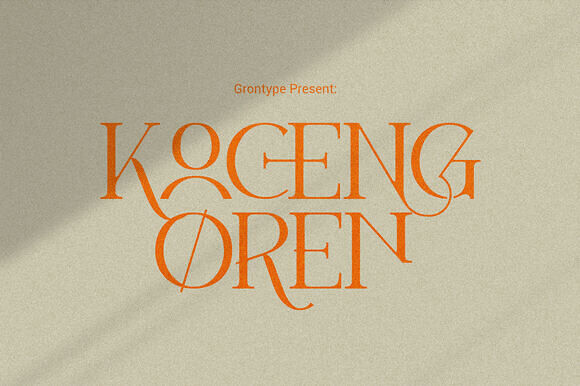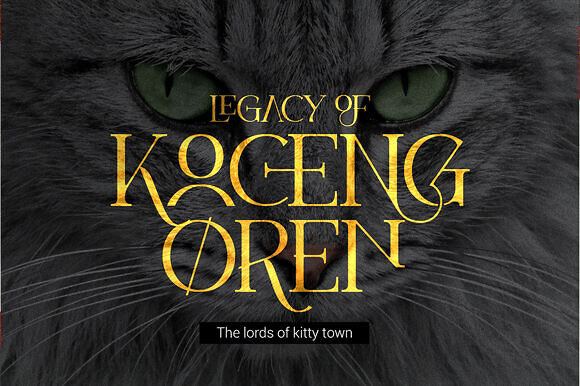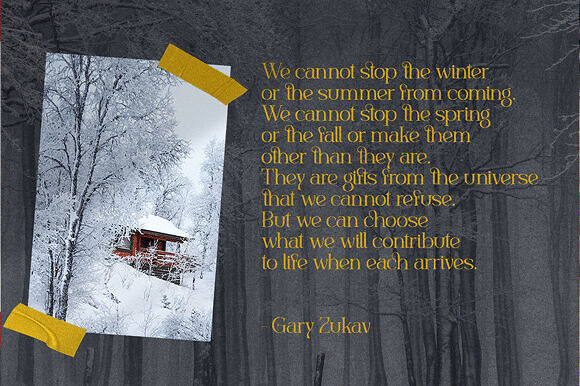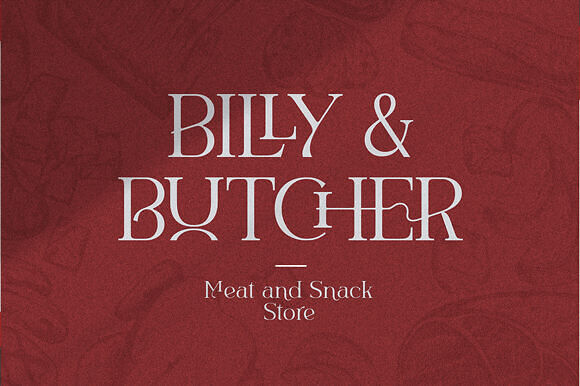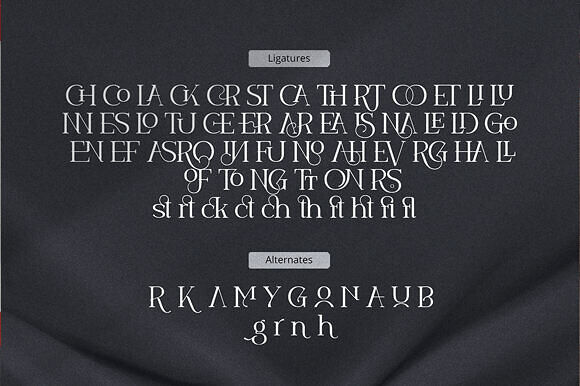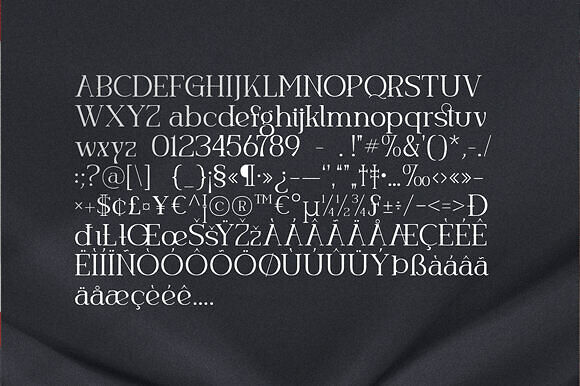
Koceng Oren is a sophisticated serif font that exudes an air of elegance and refinement. With its slender strokes and graceful curves, this font epitomizes timeless beauty and classic charm. The delicate serifs add a touch of sophistication, while the light weight brings a sense of airiness and delicacy to each letterform.
Designed with precision and care, Koceng Oren strikes a perfect balance between legibility and aesthetic appeal. Its clean lines and subtle details make it ideal for a wide range of design projects, from elegant invitations and wedding stationery to branding materials and editorial layouts.
Whether used for headlines, body text, or decorative purposes, Koceng Oren adds a touch of understated luxury to any design. Its versatility and understated beauty make it a must-have for designers seeking to evoke a sense of refinement and sophistication in their work.